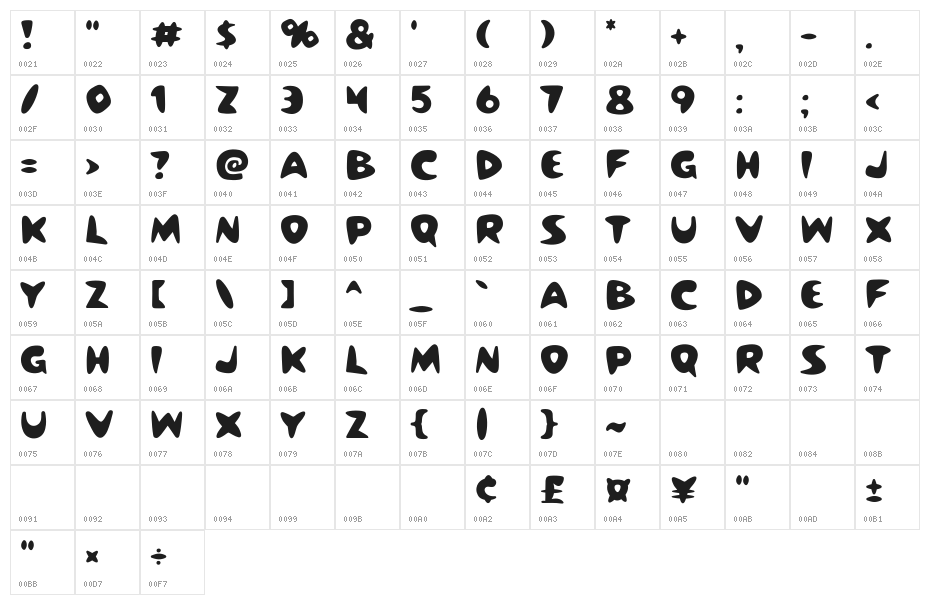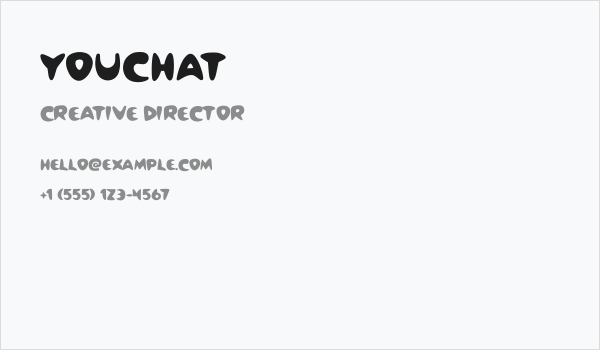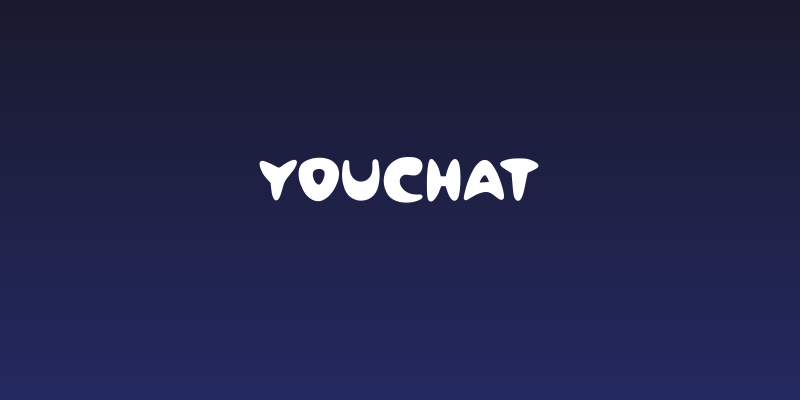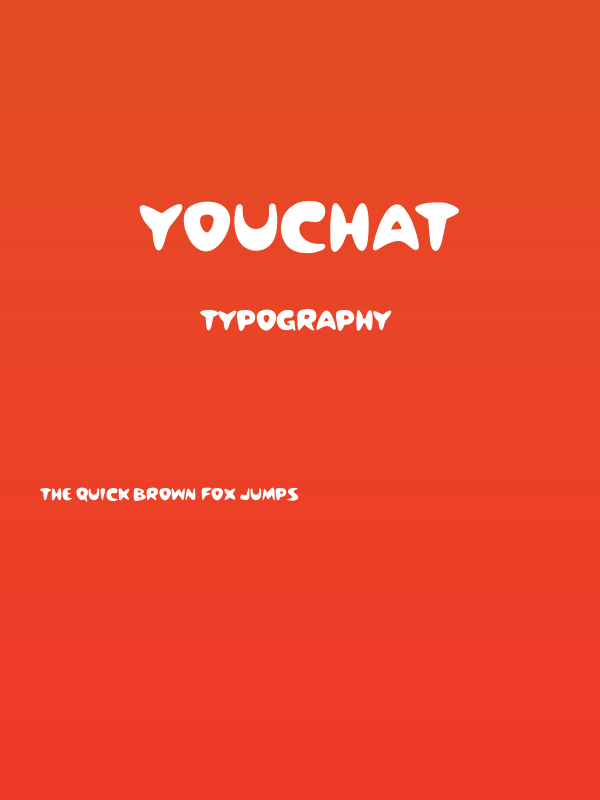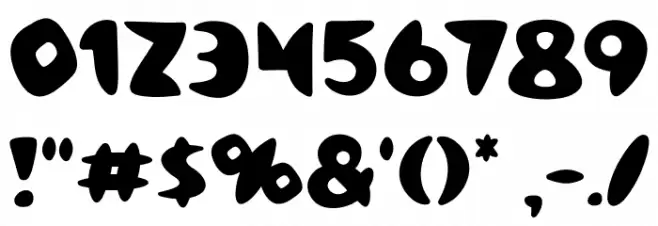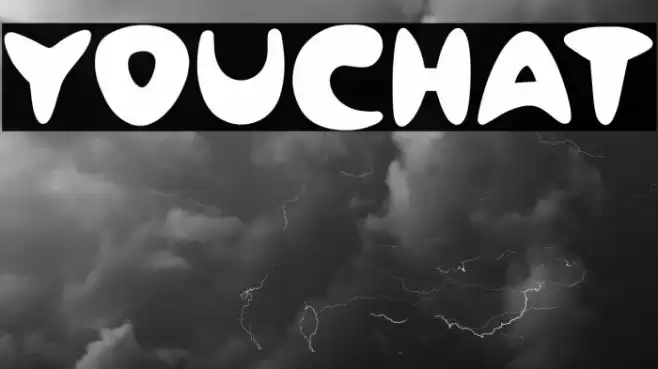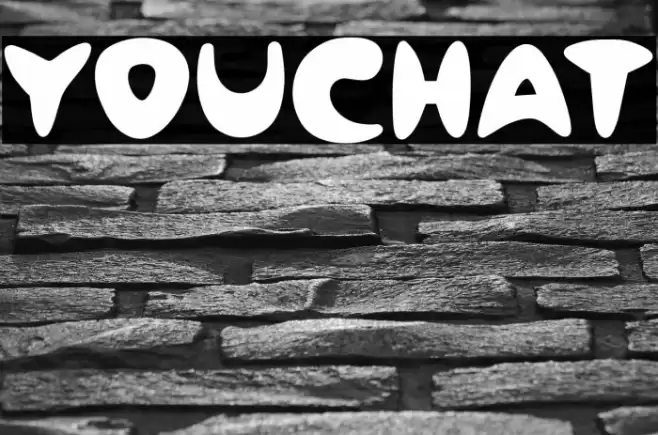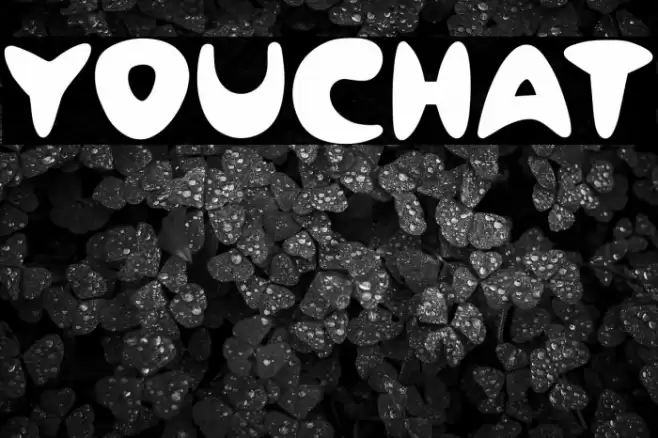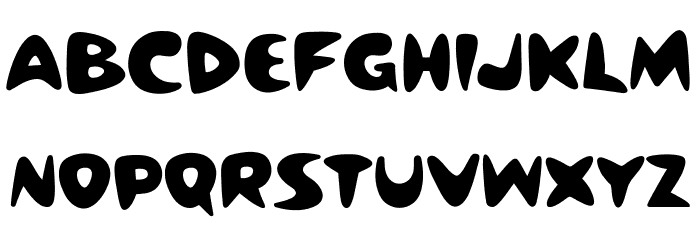
Youchat Font
Youchat Description
This playful and bold font features rounded, exaggerated letterforms that convey a sense of fun and whimsy. The characters are thick and substantial, with a slightly irregular shape that adds to their charm. The font's style is reminiscent of hand-drawn lettering, making it ideal for projects that require a personal touch. The uppercase and lowercase letters maintain a consistent weight, and the numbers and special characters are equally bold and expressive. This font is perfect for capturing attention and conveying a lively, energetic vibe.
| Overall Style | Playful, Hand-drawn |